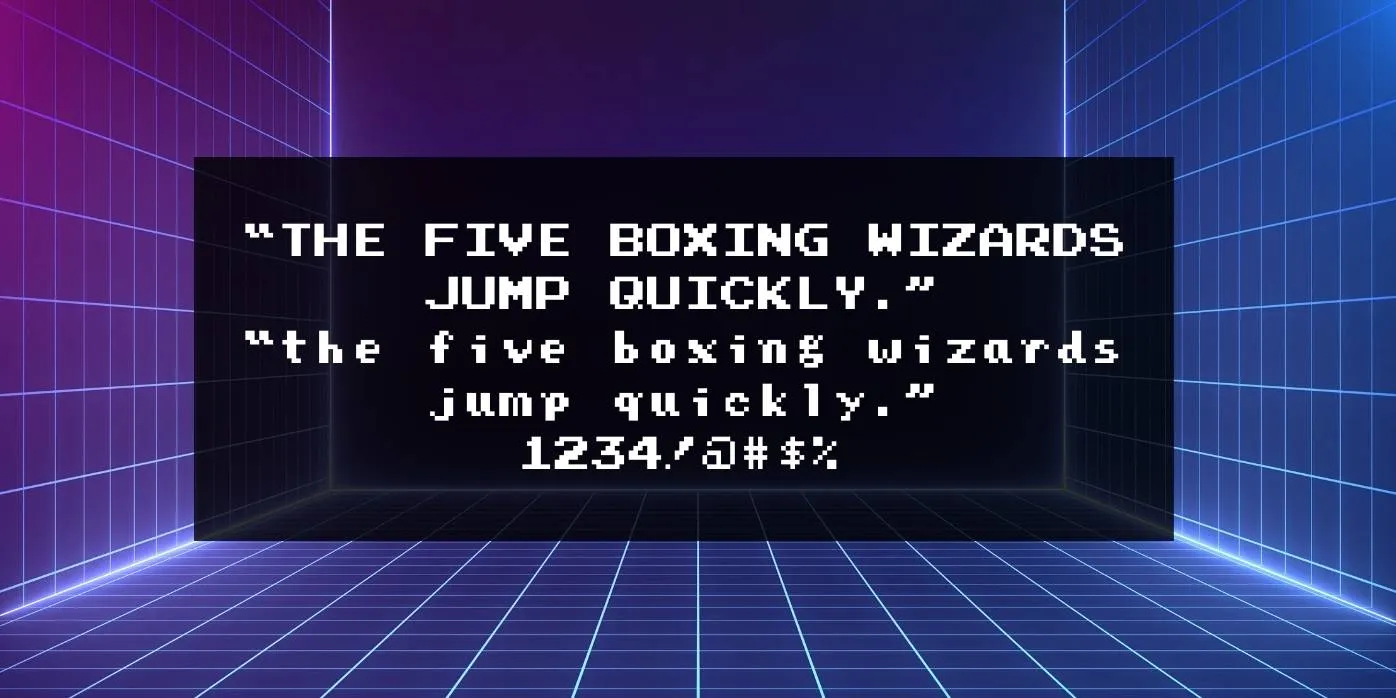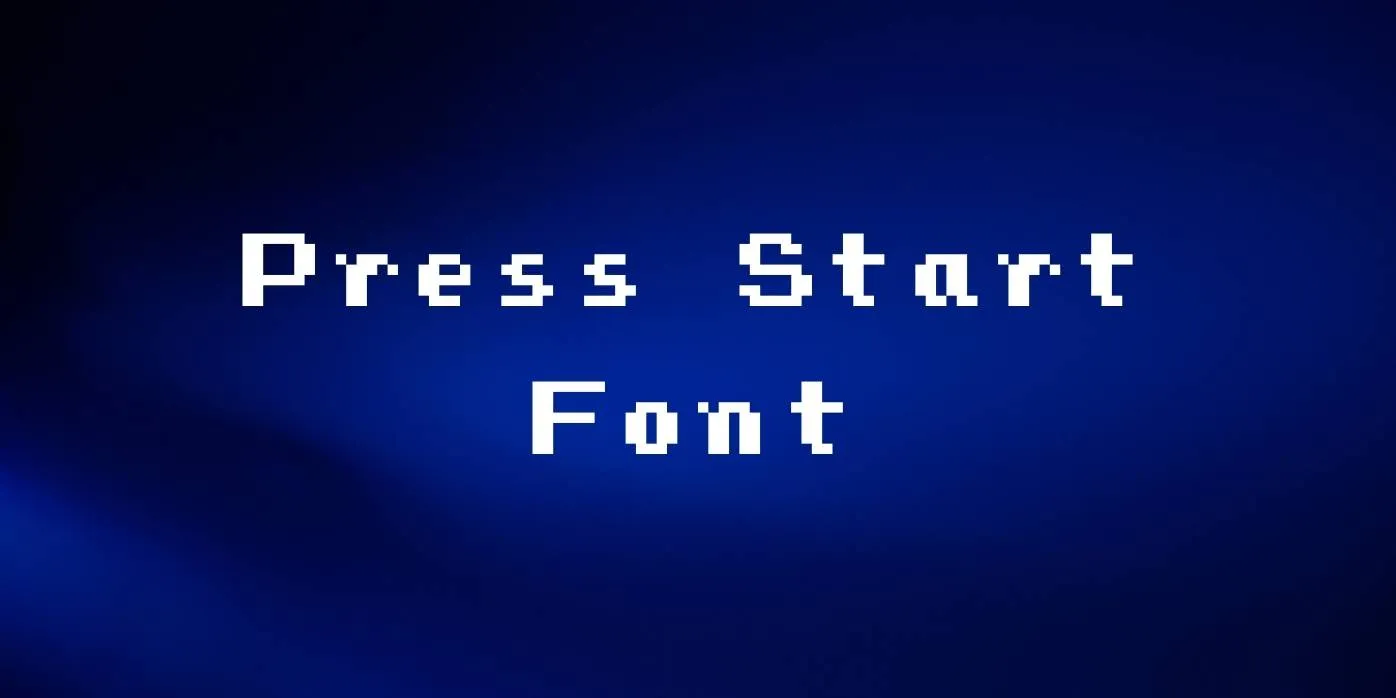
Press Start Font
Here, we present Press Start Font which was designed by Codeman38. This typeface belongs to the retro fonts family. It was created with the help of a pixel grid which makes it look sharp and clear. The best thing about this font is that it can be used for various purposes.
This makes the font look sharp and clear. The best thing about Press Start Font is that it can be used for various purposes. This typeface is available in three styles namely Regular, Bold, and Italic. You can use this font for gaming purposes, as well as for other projects that require a retro feel.
You can also use it for Adobe and Canva. You can use lullaby font which has the same style and characters as this one. Some people use Press Start Font for their web designing projects while others use it for their gaming purposes. However, the most common use of this font is for its intended purpose.